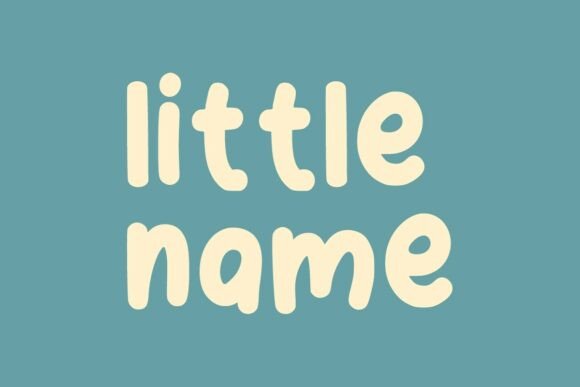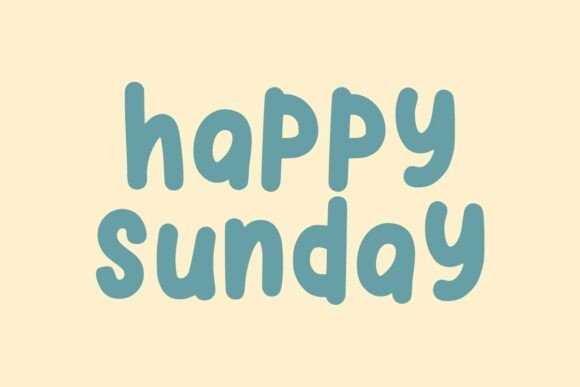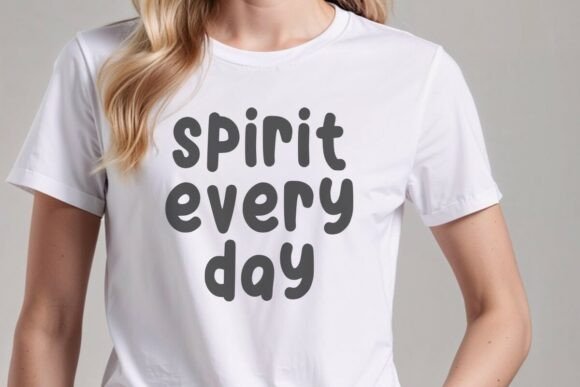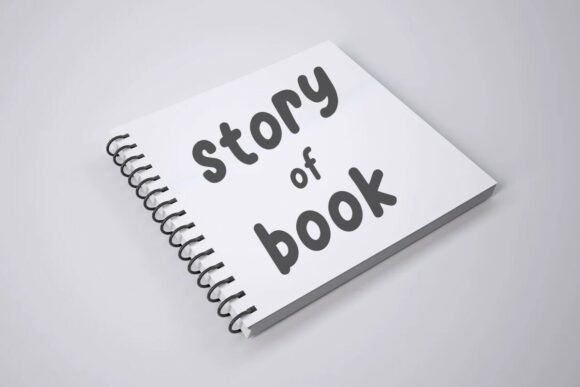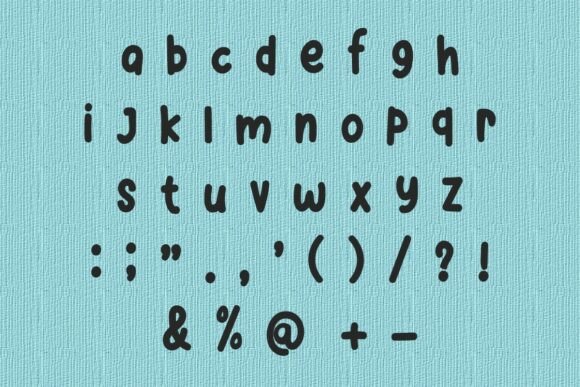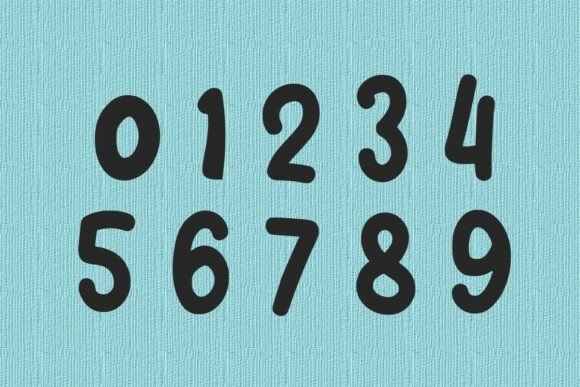
Introducing Eat Boss Font: The Cute and Friendly Display Font You Need
Are you tired of using the same old fonts for your design projects? Look no further! Eat Boss Font is a game-changing lowercase display font that’s about to become your new favorite. With its impeccable friendliness and ease of readability, this font is perfect for a variety of design applications, from crafts and book covers to digital designs, presentations, and greeting cards.
What Makes Eat Boss Font So Special?
Eat Boss Font is a unique and charming display font that’s designed to convey a sense of friendliness and approachability. Its cute and playful style makes it perfect for designers and crafters who want to add a personal touch to their work. Whether you’re creating a handmade craft, a book cover, or a digital design, Eat Boss Font is sure to make your project stand out.
Key Features of Eat Boss Font
- Lowercase and Cute: Eat Boss Font is a lowercase display font that’s designed to be cute and playful. Its unique style makes it perfect for designers who want to add a touch of personality to their work.
- Easy-to-Read: Despite its playful style, Eat Boss Font is incredibly easy to read. Its clear and simple design makes it perfect for use in a variety of design applications, from body text to headings.
- Versatile: Eat Boss Font is a versatile font that can be used in a variety of design applications, including crafts, book covers, digital designs, presentations, and greeting cards.
- Impeccable Friendliness: Eat Boss Font conveys a sense of friendliness and approachability that’s hard to find in other fonts. Its unique style makes it perfect for designers who want to create a personal connection with their audience.
Use Cases for Eat Boss Font
Eat Boss Font is a versatile font that can be used in a variety of design applications. Here are some use cases to get you started:
- Crafts: Eat Boss Font is perfect for crafters who want to add a personal touch to their handmade projects. Use it to create custom labels, cards, and other embellishments.
- Book Covers: Eat Boss Font is a great choice for book covers, especially for children’s books, cookbooks, and other titles that require a friendly and approachable tone.
- Digital Designs: Eat Boss Font is perfect for digital designers who want to create engaging and interactive designs. Use it to create custom graphics, icons, and other visual elements.
- Presentations: Eat Boss Font is a great choice for presentations, especially for designers who want to create a friendly and approachable tone. Use it to create custom slides, headings, and other visual elements.
- Greeting Cards: Eat Boss Font is perfect for designers who want to create custom greeting cards for special occasions. Use it to create custom text, headings, and other visual elements.
Why Choose Eat Boss Font?
There are many fonts to choose from, but Eat Boss Font stands out from the crowd. Here are some reasons why you should choose Eat Boss Font for your next design project:
- Unique Style: Eat Boss Font has a unique and charming style that’s hard to find in other fonts.
- Easy to Read: Eat Boss Font is incredibly easy to read, making it perfect for use in a variety of design applications.
- Versatile: Eat Boss Font is a versatile font that can be used in a variety of design applications.
- Friendliness: Eat Boss Font conveys a sense of friendliness and approachability that’s hard to find in other fonts.
Eat Boss Font is a game-changing display font that’s perfect for designers and crafters who want to add a personal touch to their work. With its unique style, ease of readability, and versatility, this font is sure to become your new favorite. Whether you’re creating a handmade craft, a book cover, or a digital design, Eat Boss Font is the perfect choice. So why wait? Try Eat Boss Font today and see the difference it can make in your design projects!